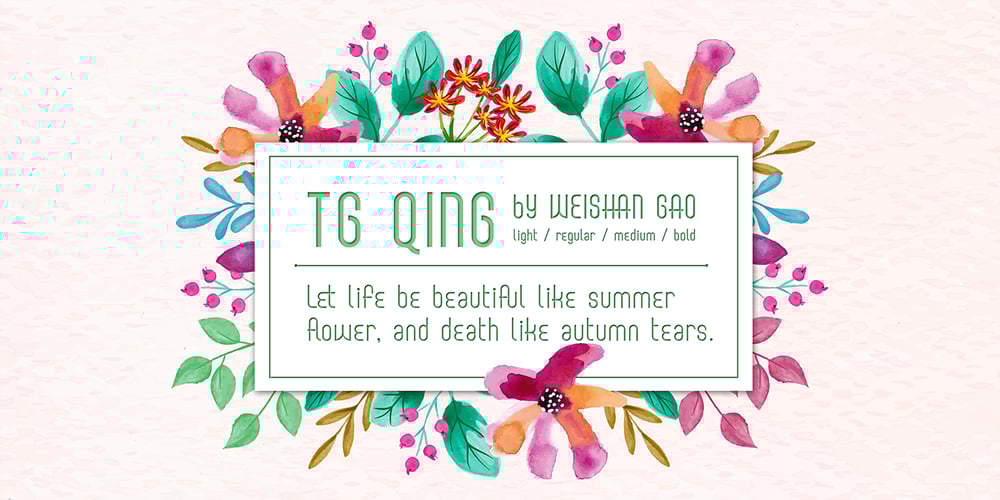
TG Qing
TG Qing font
TG Qing Font Family was designed by Weishan Gao and published by Weishan Gao. TG Qing contains 4 styles and family package options. TG Qing is a very beautiful font suitable for titles and main text, with a total of four font weights, which can be used for women’s products, cosmetics, beauty, etc